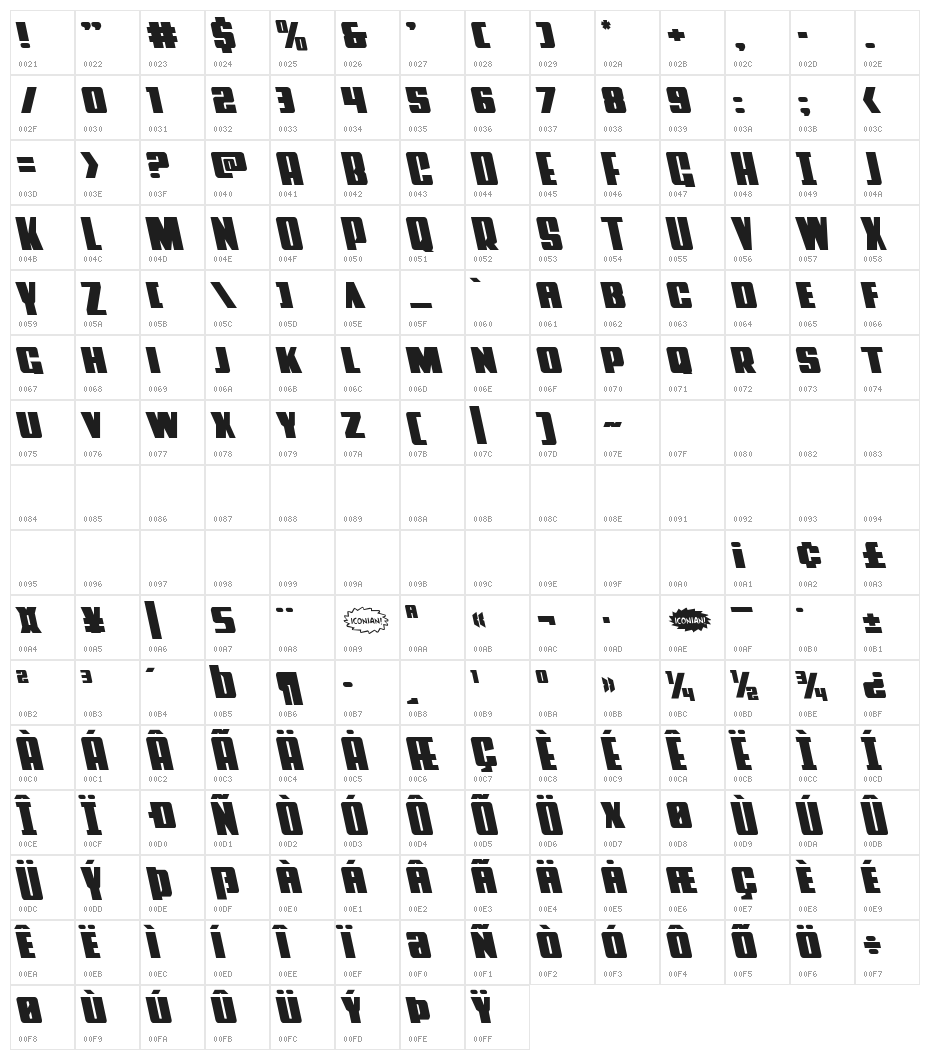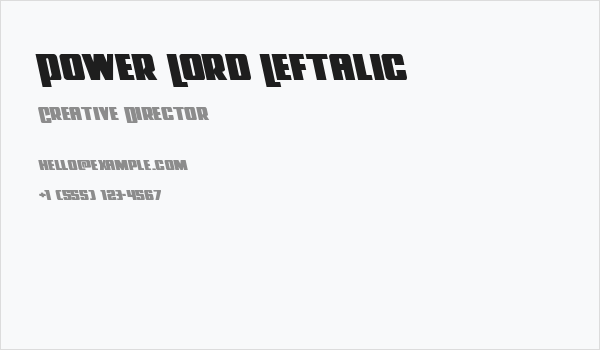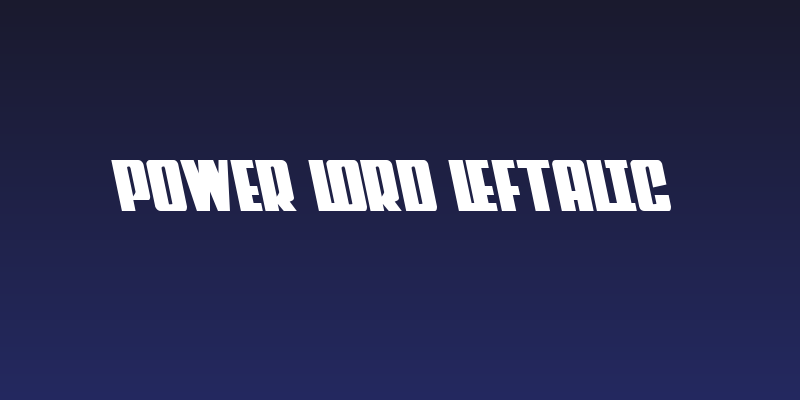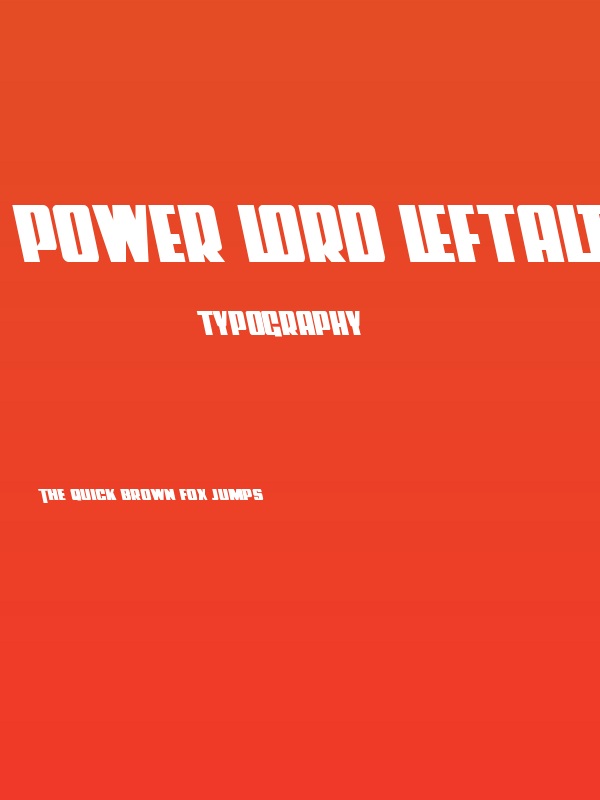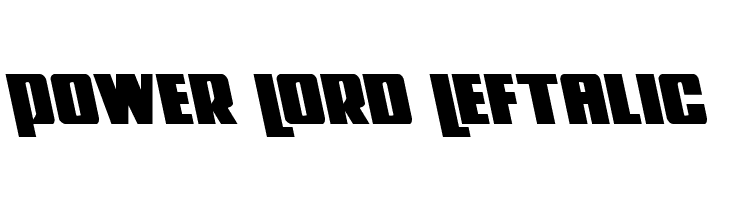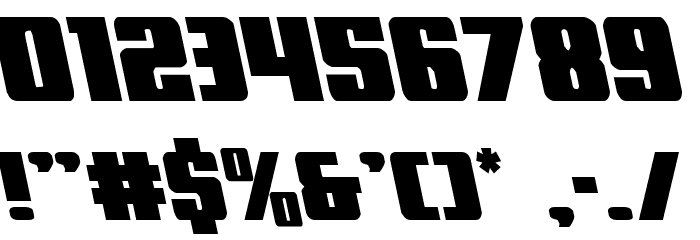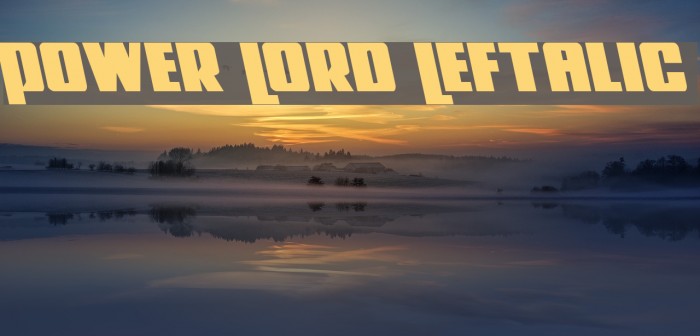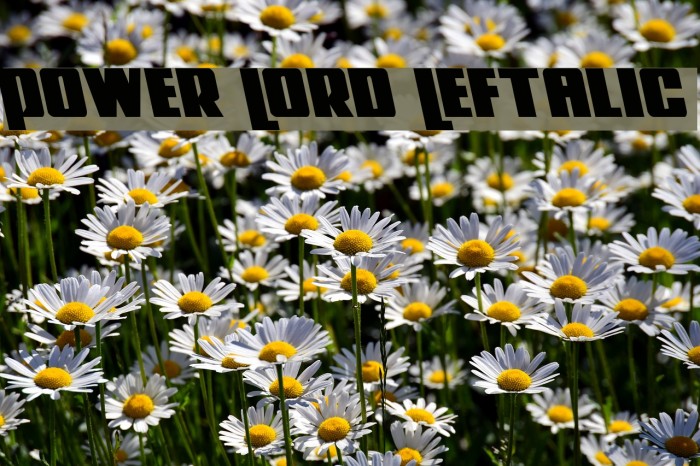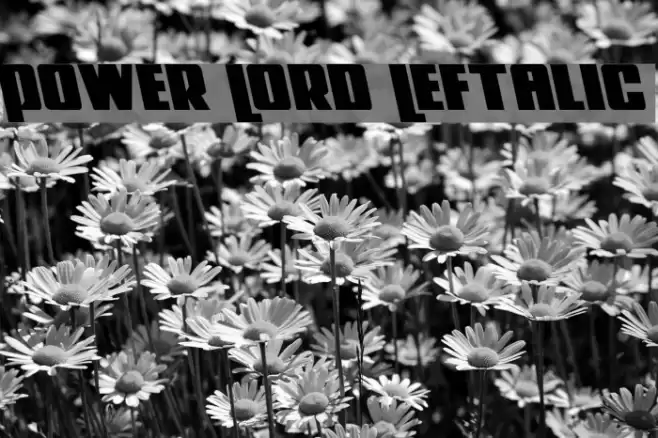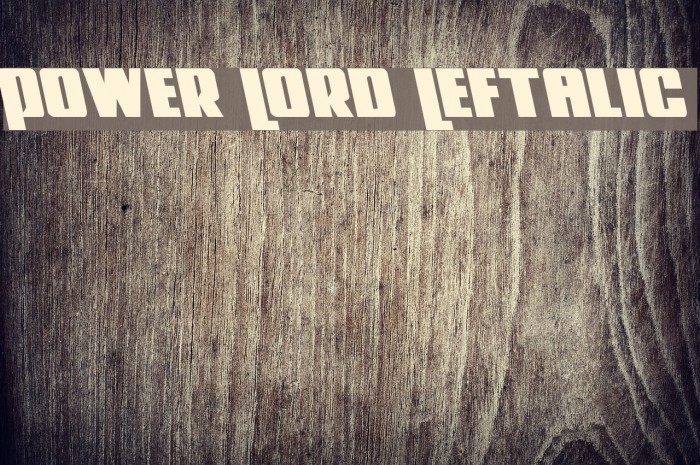
Power Lord Leftalic Font
Power Lord Leftalic Description
This bold and dynamic font features a strong, angular design with a distinct slant to the left, giving it a powerful and energetic appearance. The characters are tightly spaced, enhancing its compact and impactful look. The uppercase letters are robust and commanding, while the lowercase letters maintain a consistent style, ensuring readability. Numbers and special characters are designed with the same boldness, making them suitable for attention-grabbing displays. The font's high contrast in stroke thickness adds to its dramatic and assertive style, making it ideal for projects that require a strong visual impact.
| Proposed Projects | Ideal for posters, headlines, sports branding, and any project needing a bold statement. |